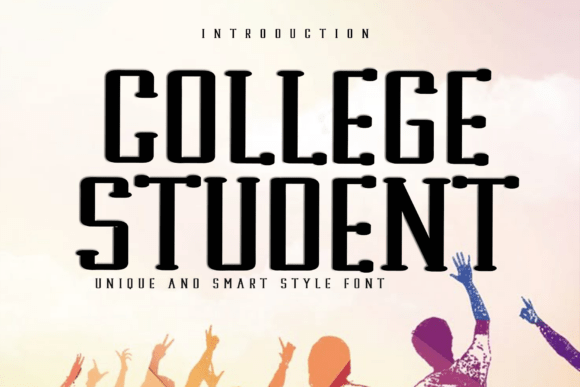
Introducing College Student Font: A Unique and Versatile Typeface
The College Student Font is a beautiful and eye-catching typeface designed with a soft, unique touch. Its distinctive strokes give it a special character, making it meaningful and versatile for future use. With various characters, itβs perfect for design projects, crafts, and other creative works.
What Makes College Student Font Stand Out?
The College Student Font is a one-of-a-kind typeface that has been crafted with attention to detail and a focus on aesthetics. Its soft and unique touch sets it apart from other fonts, making it perfect for designers who want to add a personal touch to their work.
The font’s distinctive strokes give it a special character that makes it stand out from the crowd. Whether you’re working on a design project, crafting a logo, or creating a work of art, the College Student Font is sure to make your work look amazing.
Key Features of College Student Font
- Unique and Soft Touch: The College Student Font has a distinctive soft touch that sets it apart from other fonts.
- Distinctive Strokes: The font’s strokes are carefully crafted to give it a special character.
- Versatile: The font is perfect for a wide range of design projects, crafts, and creative works.
- Natural Font Style: The font has a natural style that makes it perfect for a wide range of products.
Use Cases for College Student Font
The College Student Font is perfect for a wide range of design projects, including:
- Design Projects: The font is perfect for designers who want to add a personal touch to their work.
- Crafts: The font is perfect for crafters who want to create unique and eye-catching projects.
- Creative Works: The font is perfect for artists, writers, and musicians who want to add a personal touch to their work.
- Branding and Advertising: The font is perfect for businesses who want to create a unique and memorable brand identity.
Benefits of Using College Student Font
There are several benefits to using the College Student Font, including:
- Unique and Eye-Catching: The font is sure to grab attention and make your work stand out.
- Versatile: The font is perfect for a wide range of design projects, crafts, and creative works.
The College Student Font is a unique and versatile typeface that is perfect for designers, crafters, and artists who want to add a personal touch to their work. With its soft and unique touch, distinctive strokes, and cross-platform compatibility, this font is sure to make your work stand out.
- What is the College Student Font? The College Student Font is a unique and versatile typeface designed with a soft, unique touch.